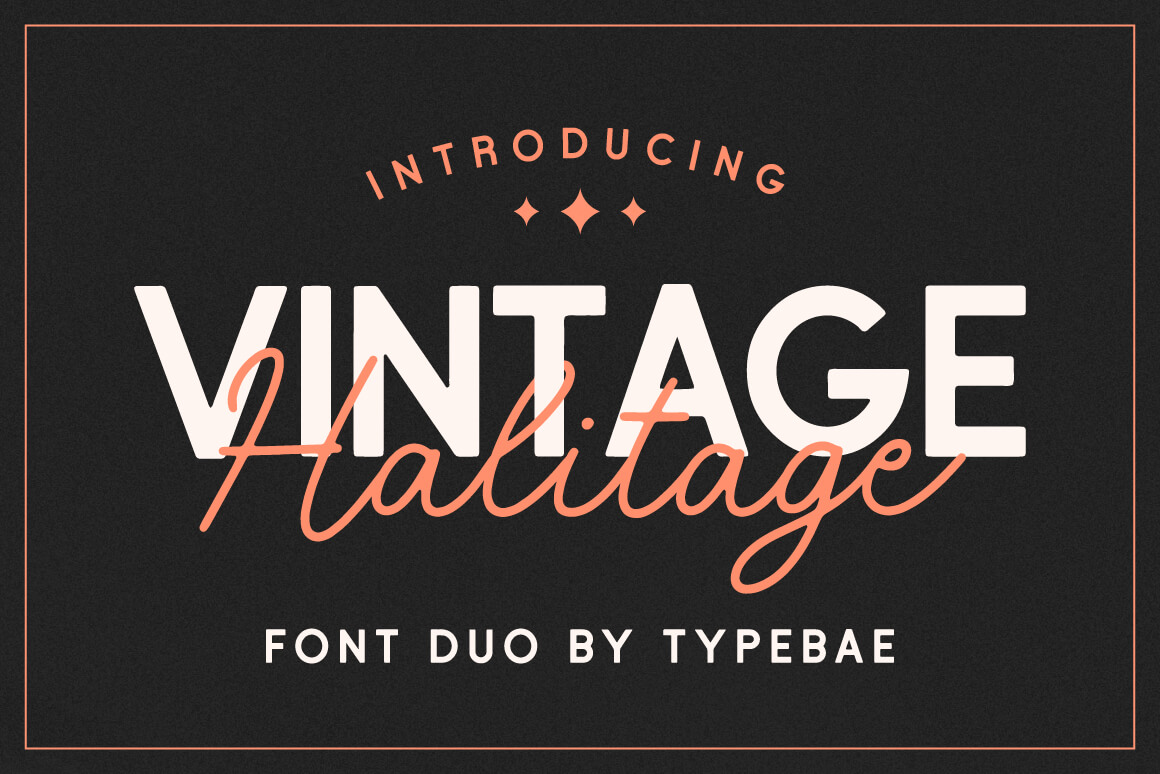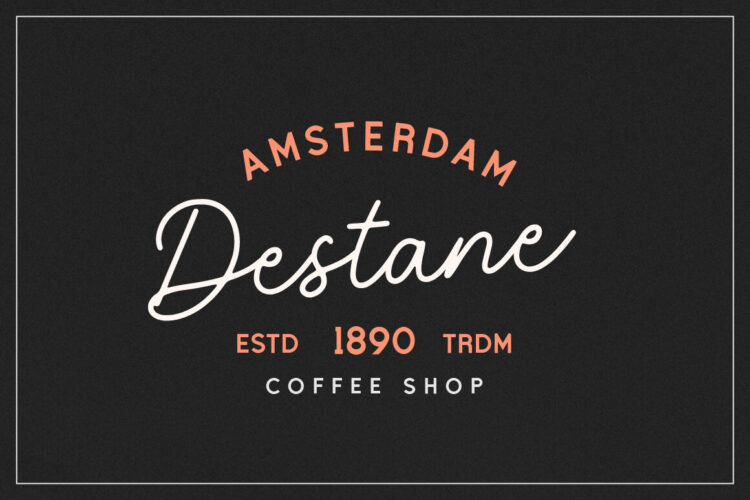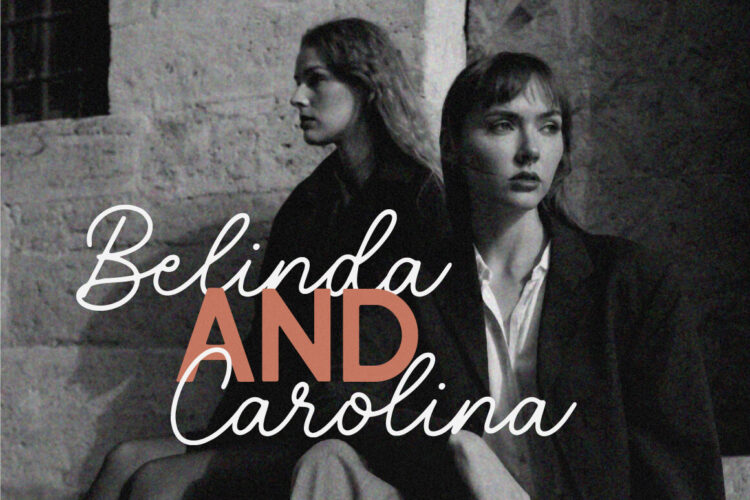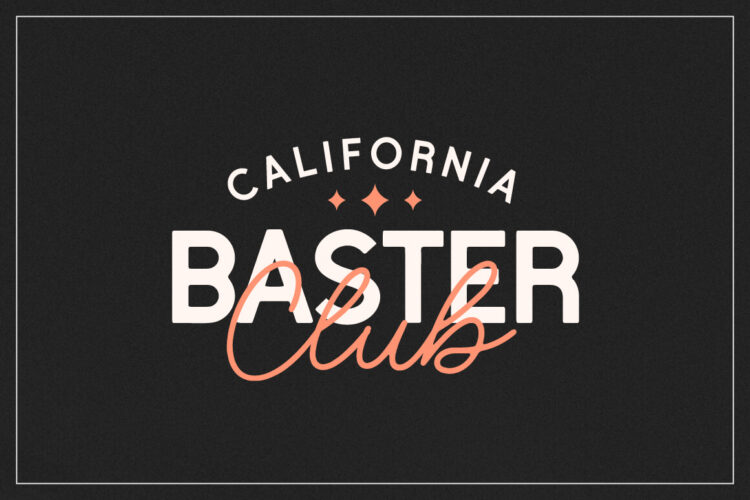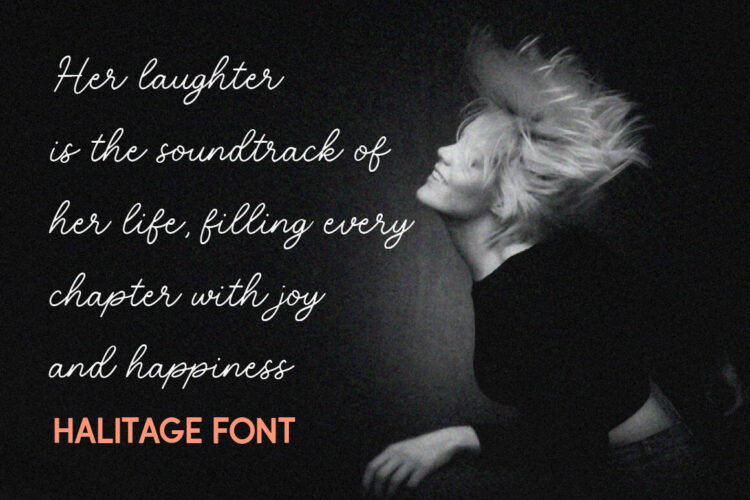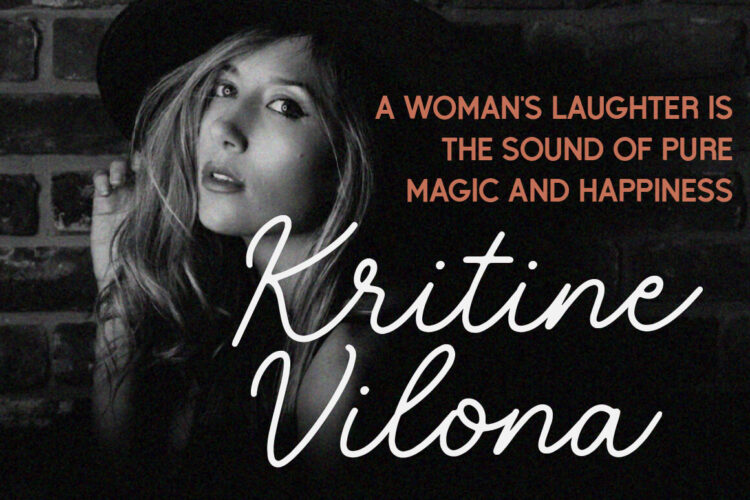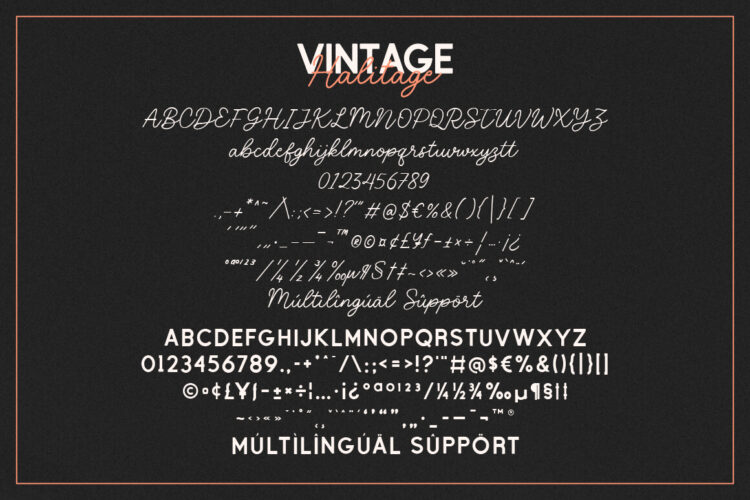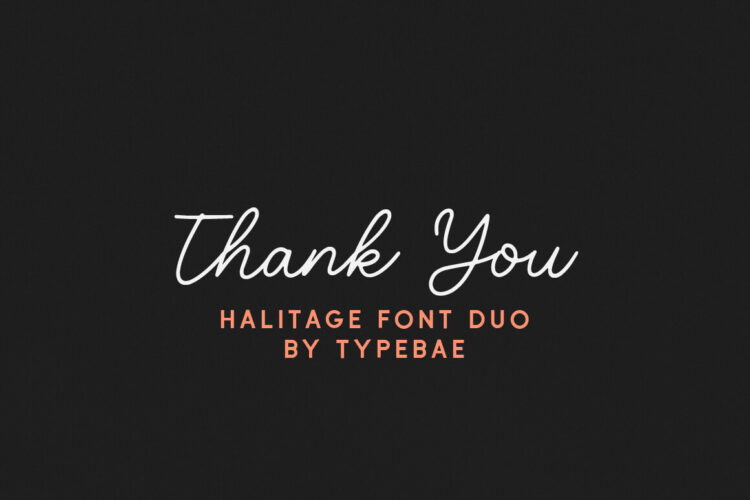
Vintage Font Duo
Halitage-Sans
Halitage-Script
Halitage is a vintage duo font that combines a script style and a sans serif style. Together, the Halitage font duo offers a harmonious blend of vintage and contemporary aesthetics, making it versatile for various creative applications such as branding, logos, invitations, and more.
• Halitage Script & Sans
• Standard alphabet and punctuation
• Ligature feature
• Multilingual Support
Halitage – Vintage Font Duo